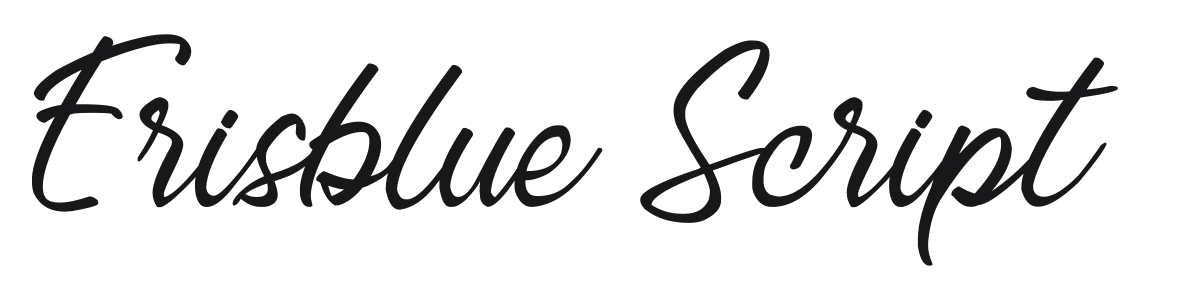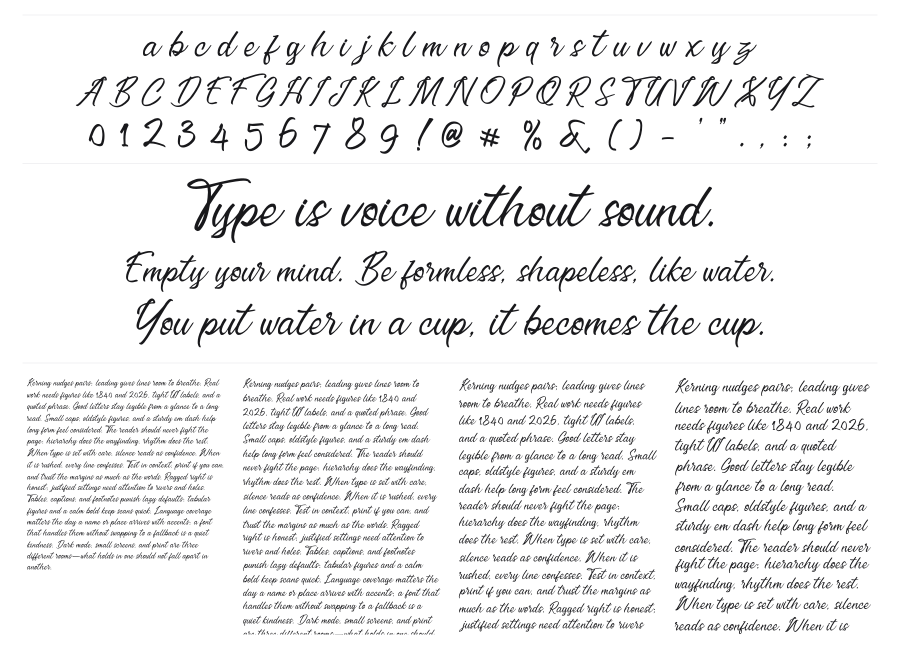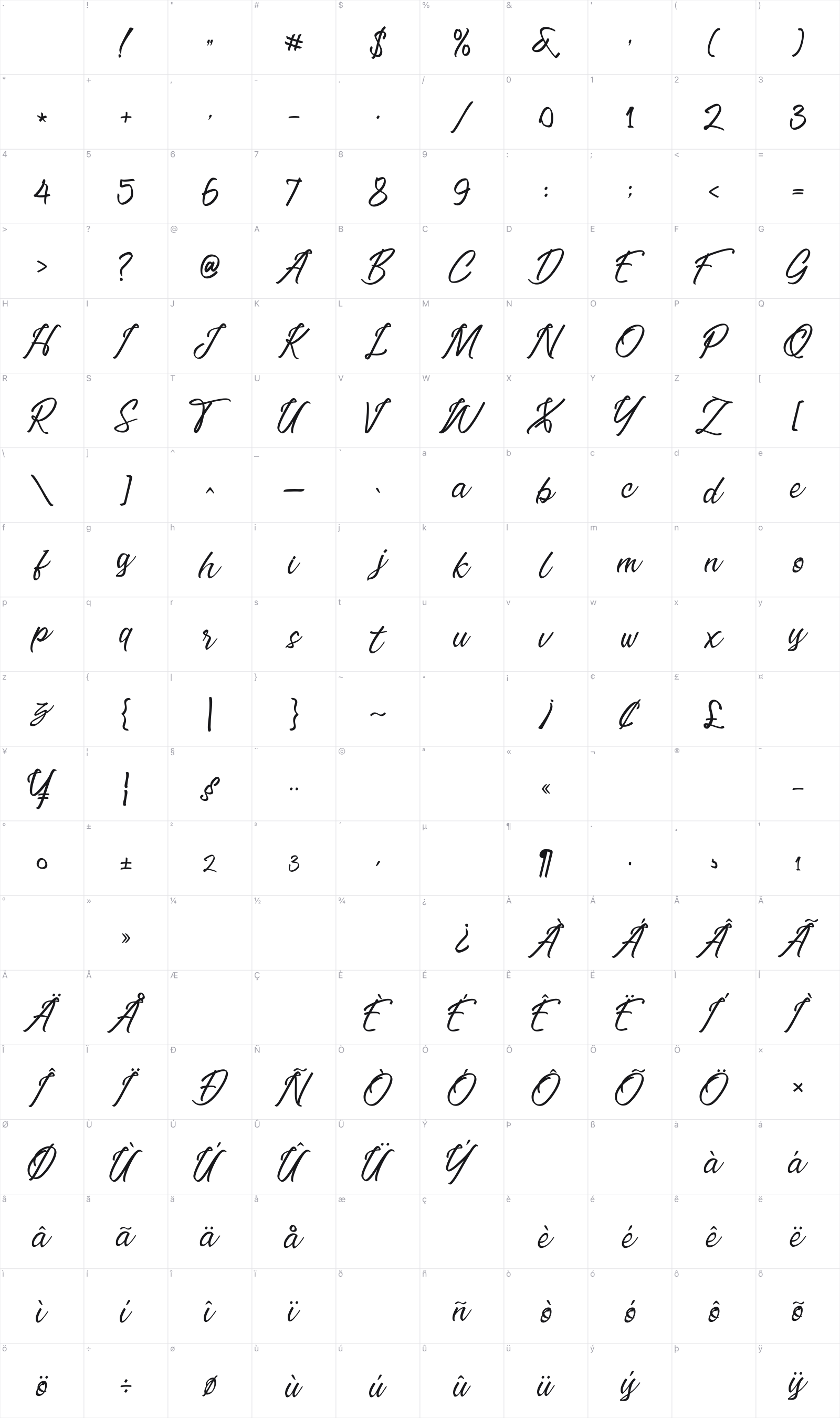
Erisblue Script
Erisblue Script is a casual connected script with an easy, flowing rhythm and natural hand-lettering energy. Long looping ascenders and descenders interlock across the baseline, creating a sense of continuous motion without feeling overdone. It sits comfortably in branding, packaging, and editorial contexts where a warm, personal touch is needed.